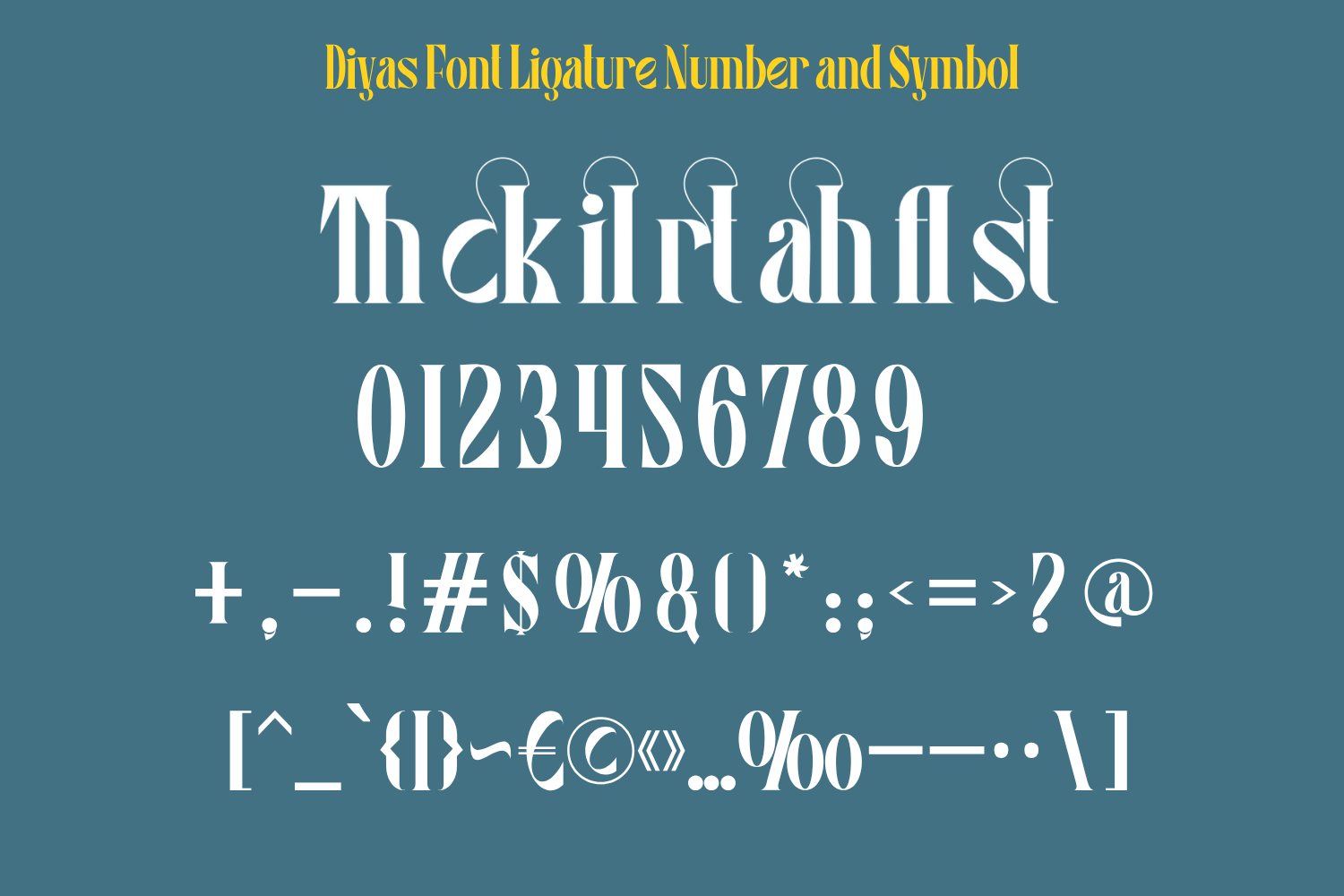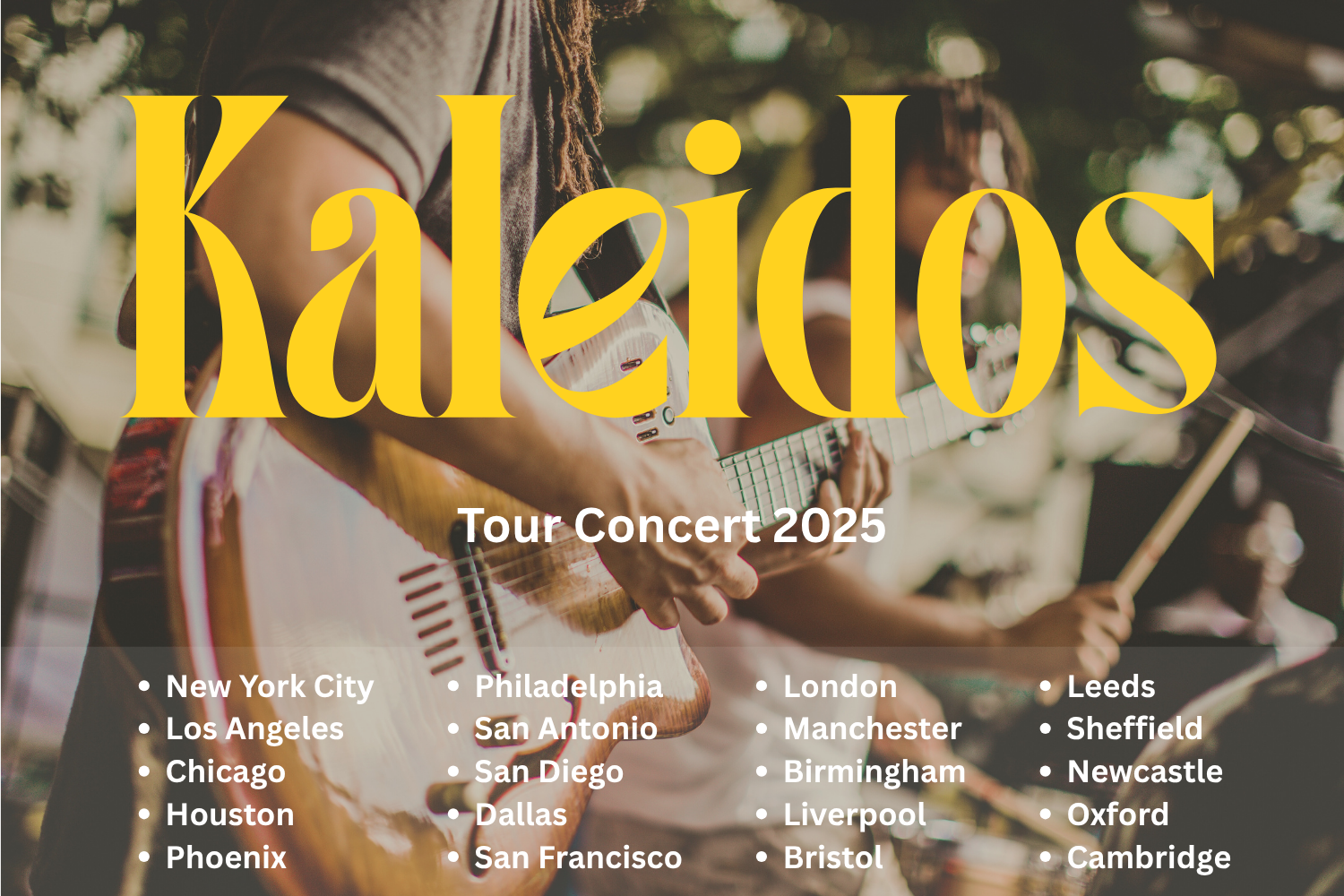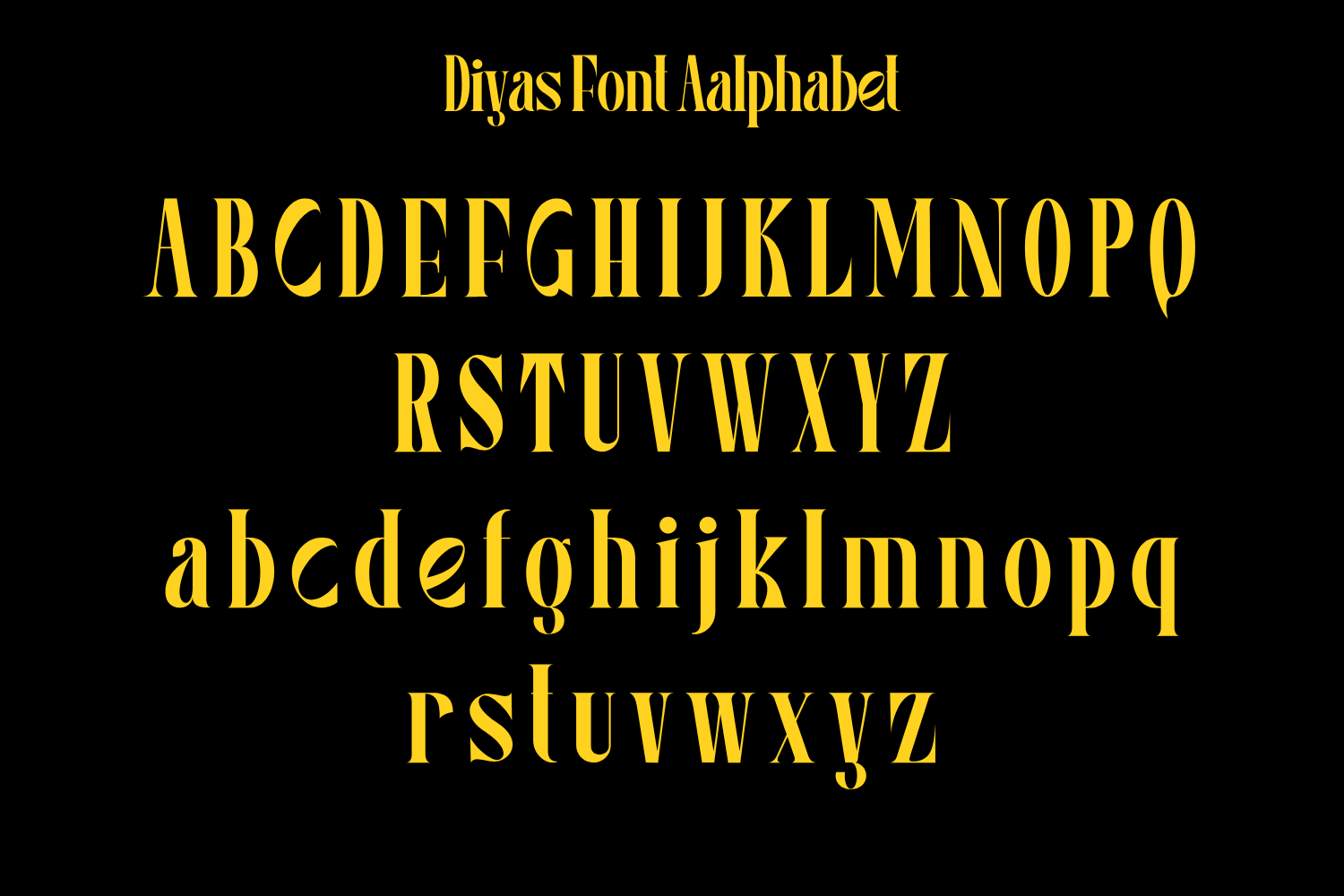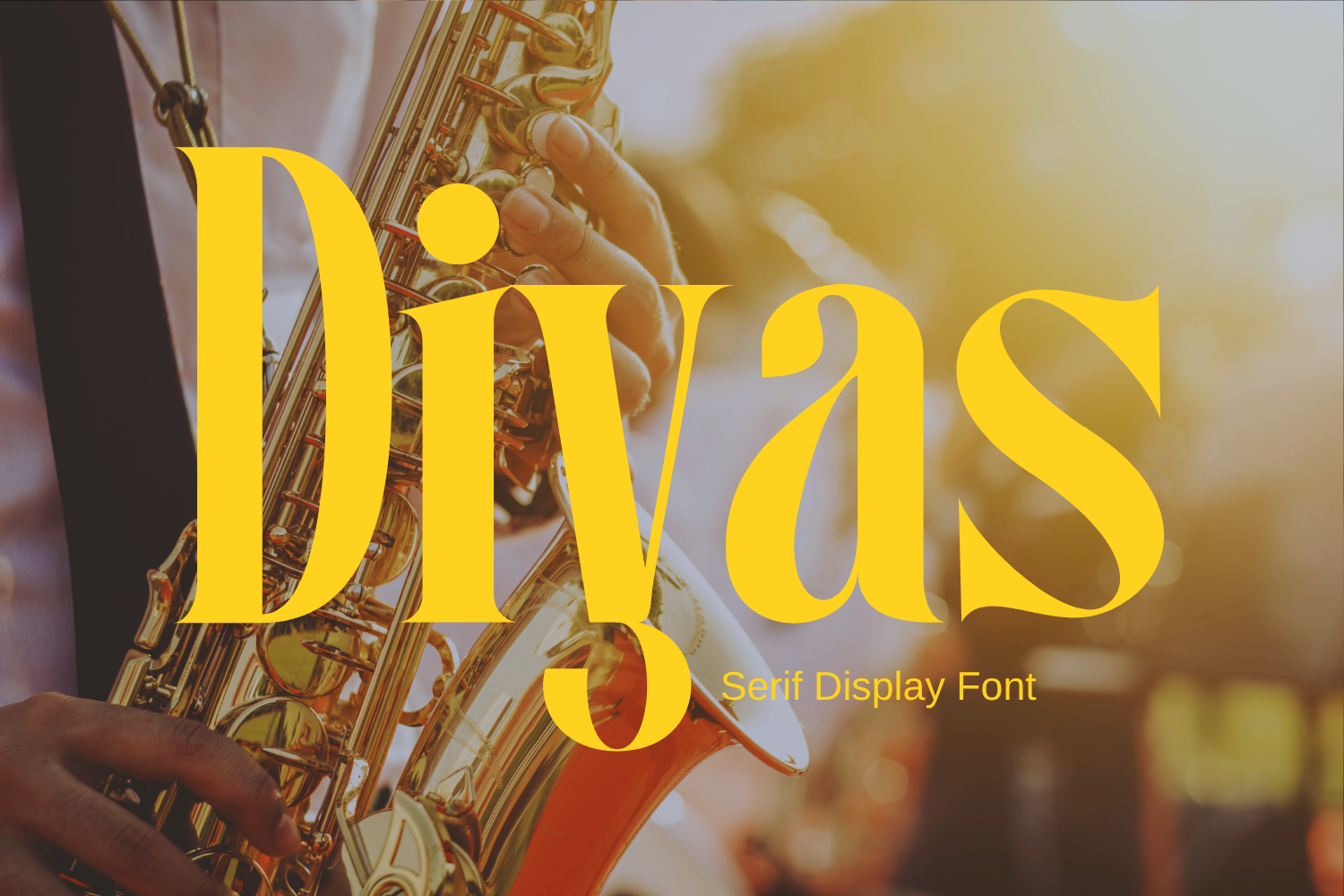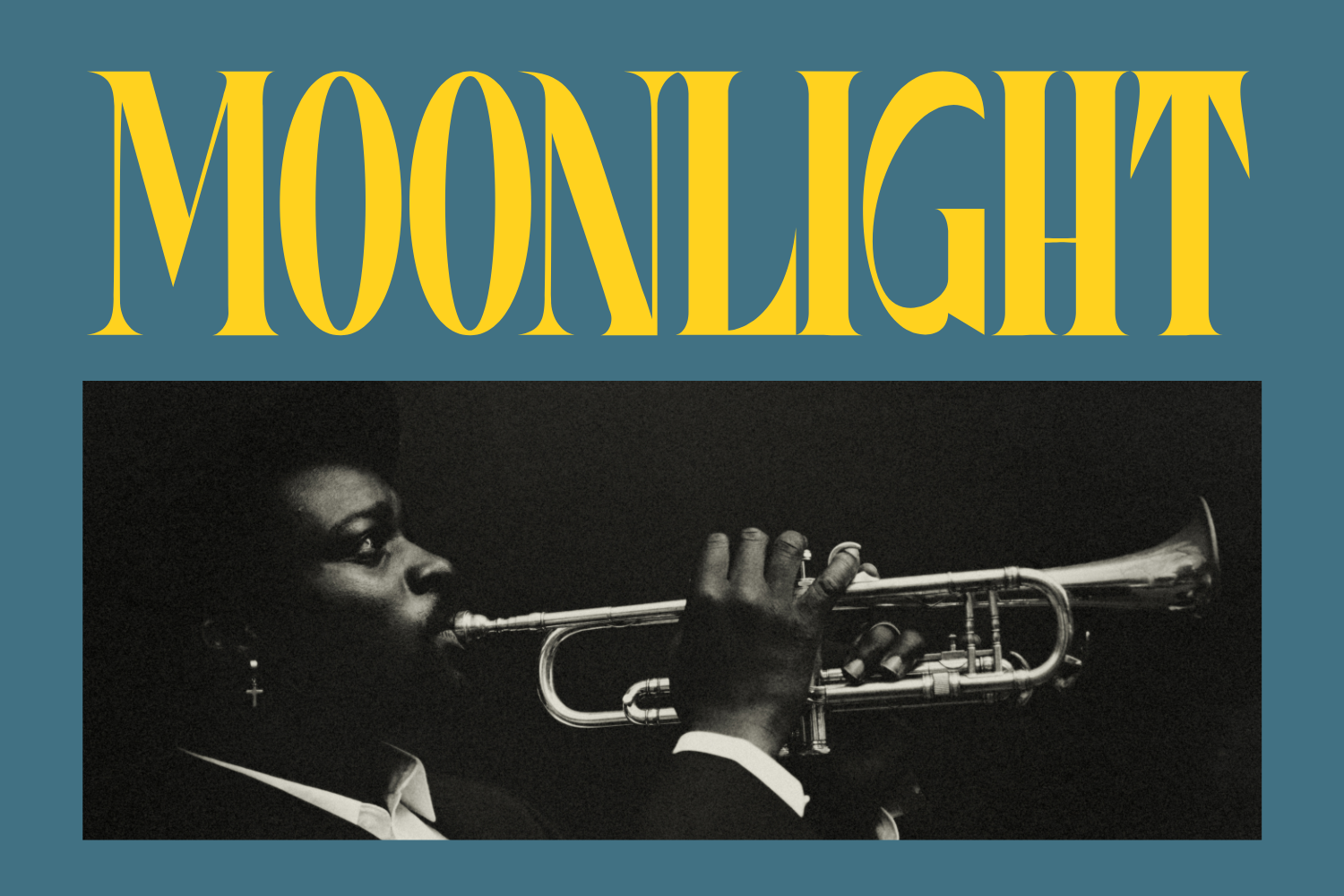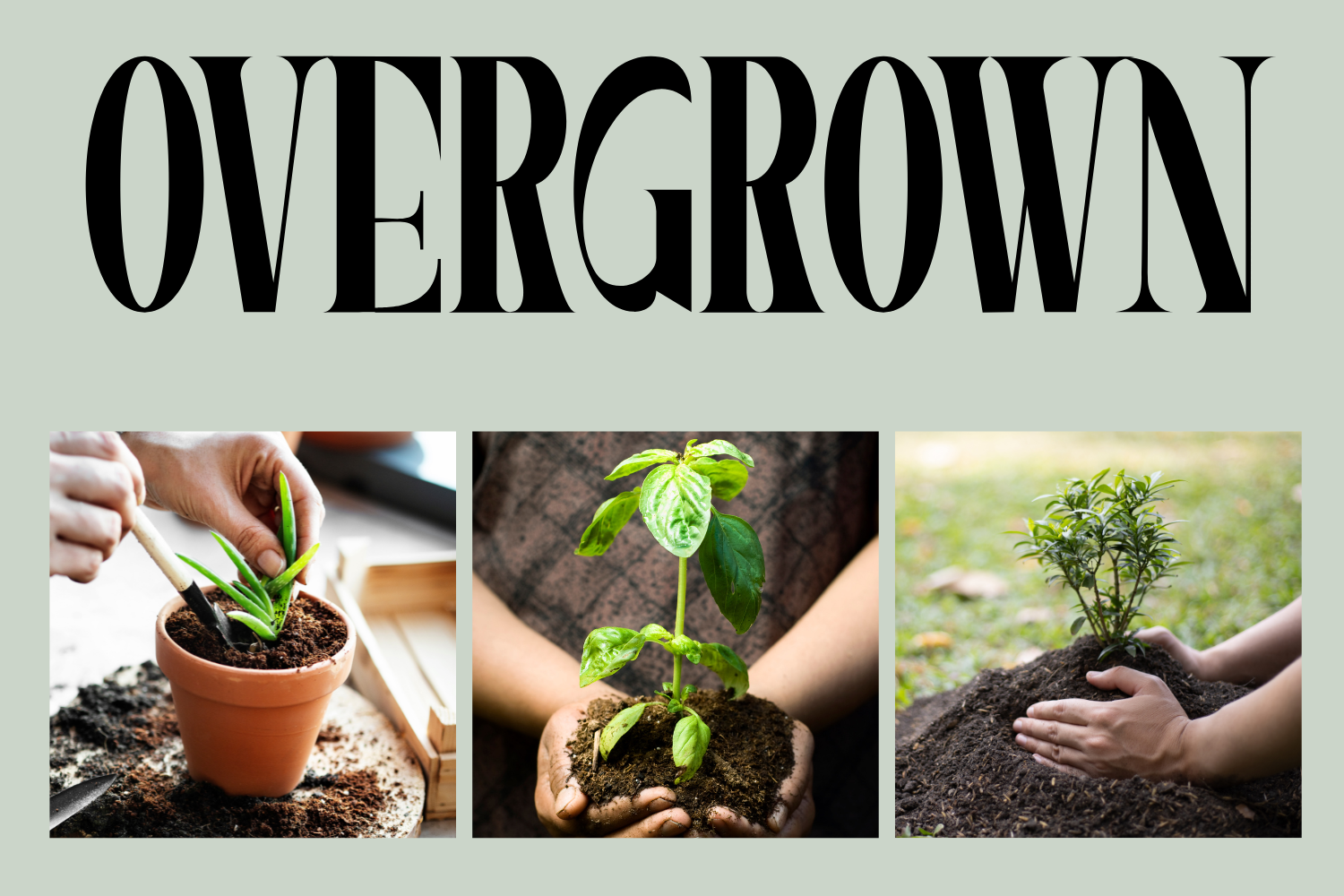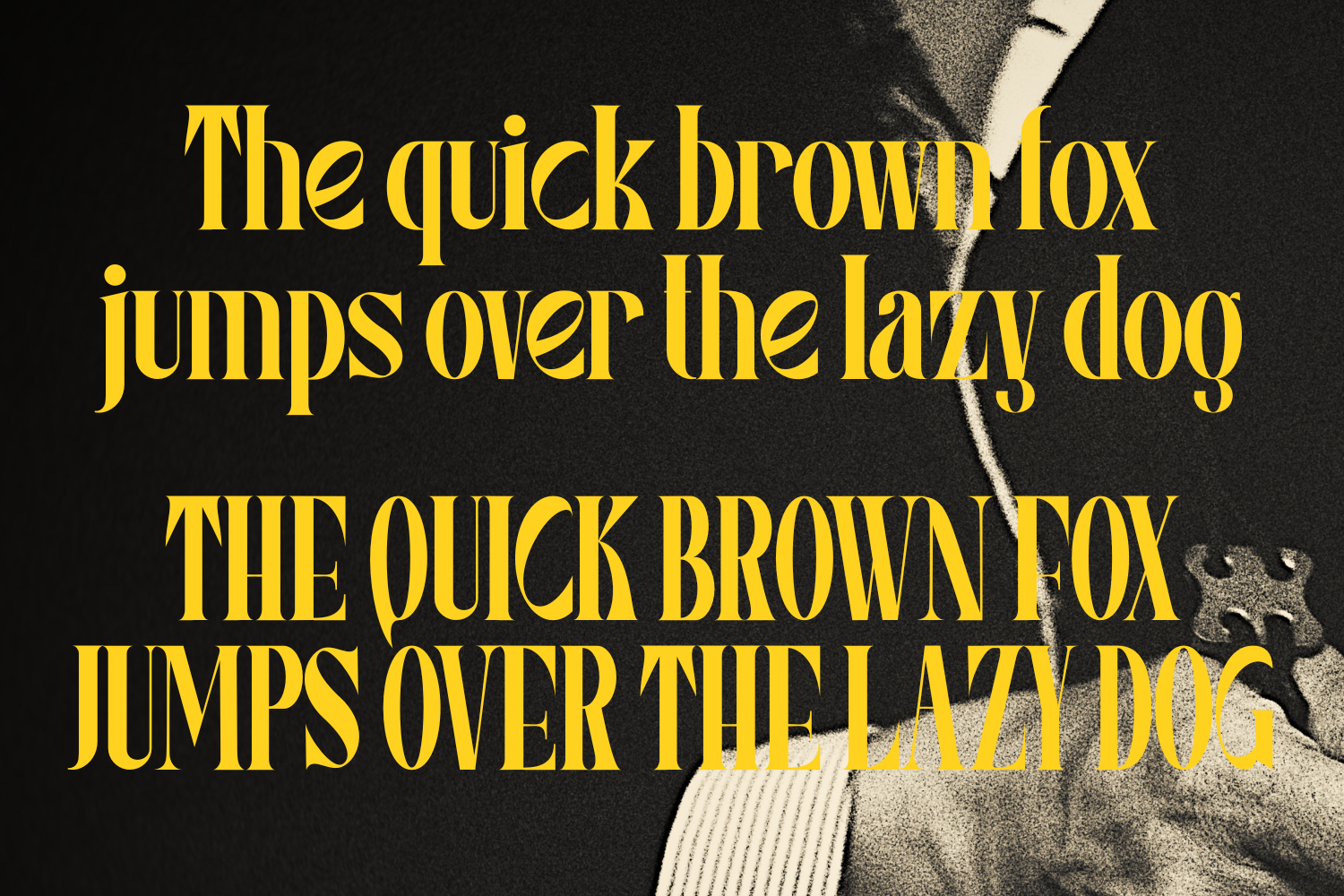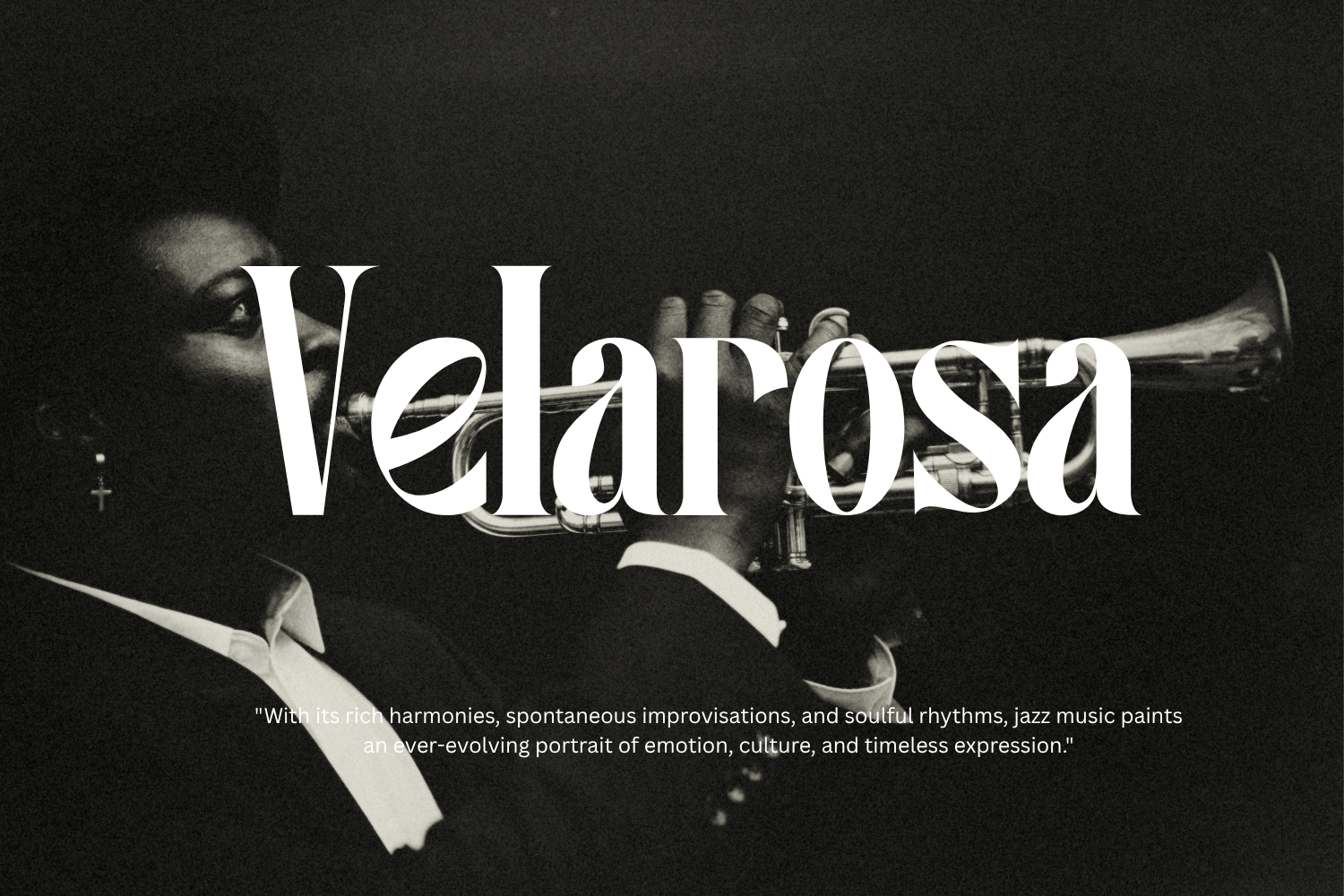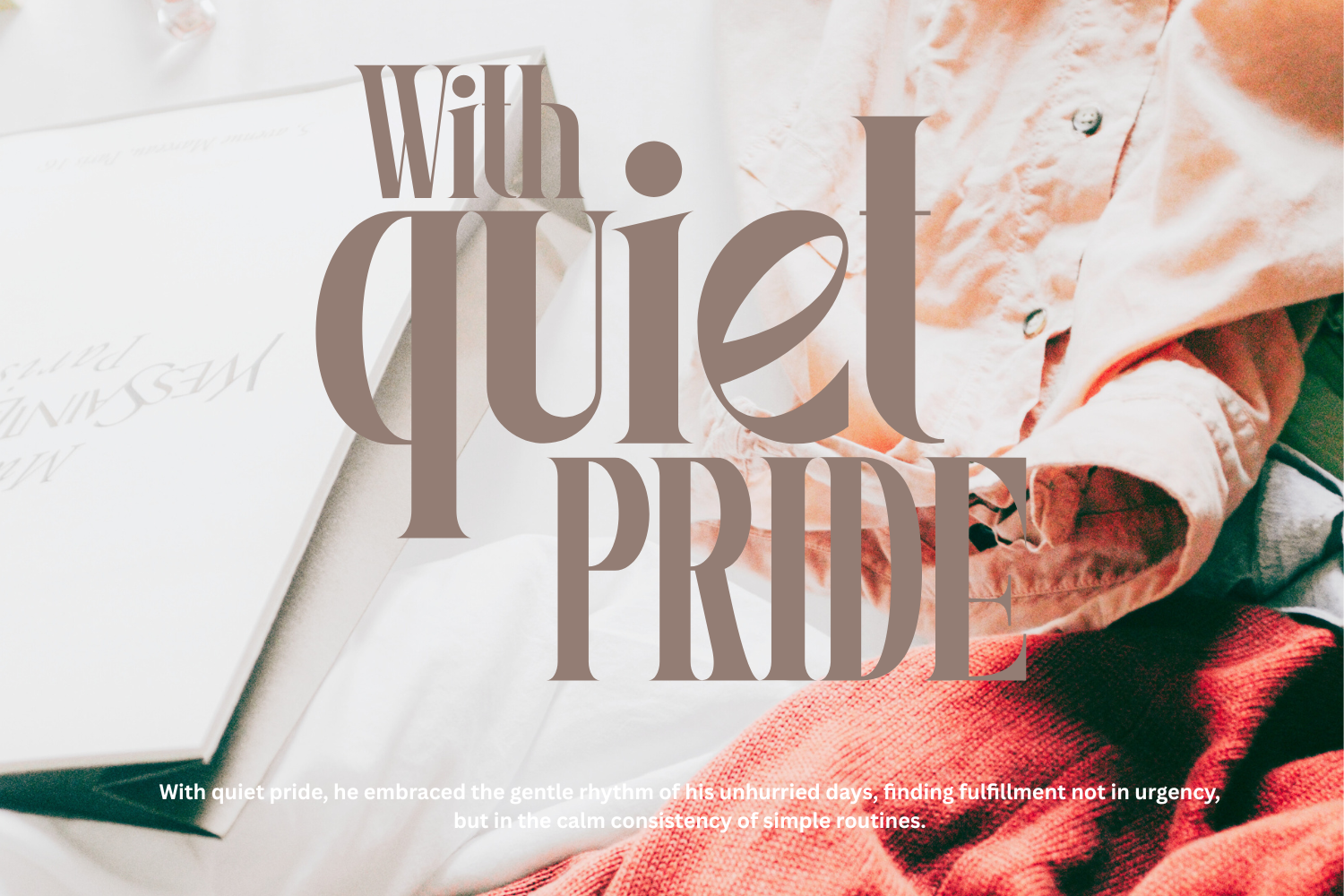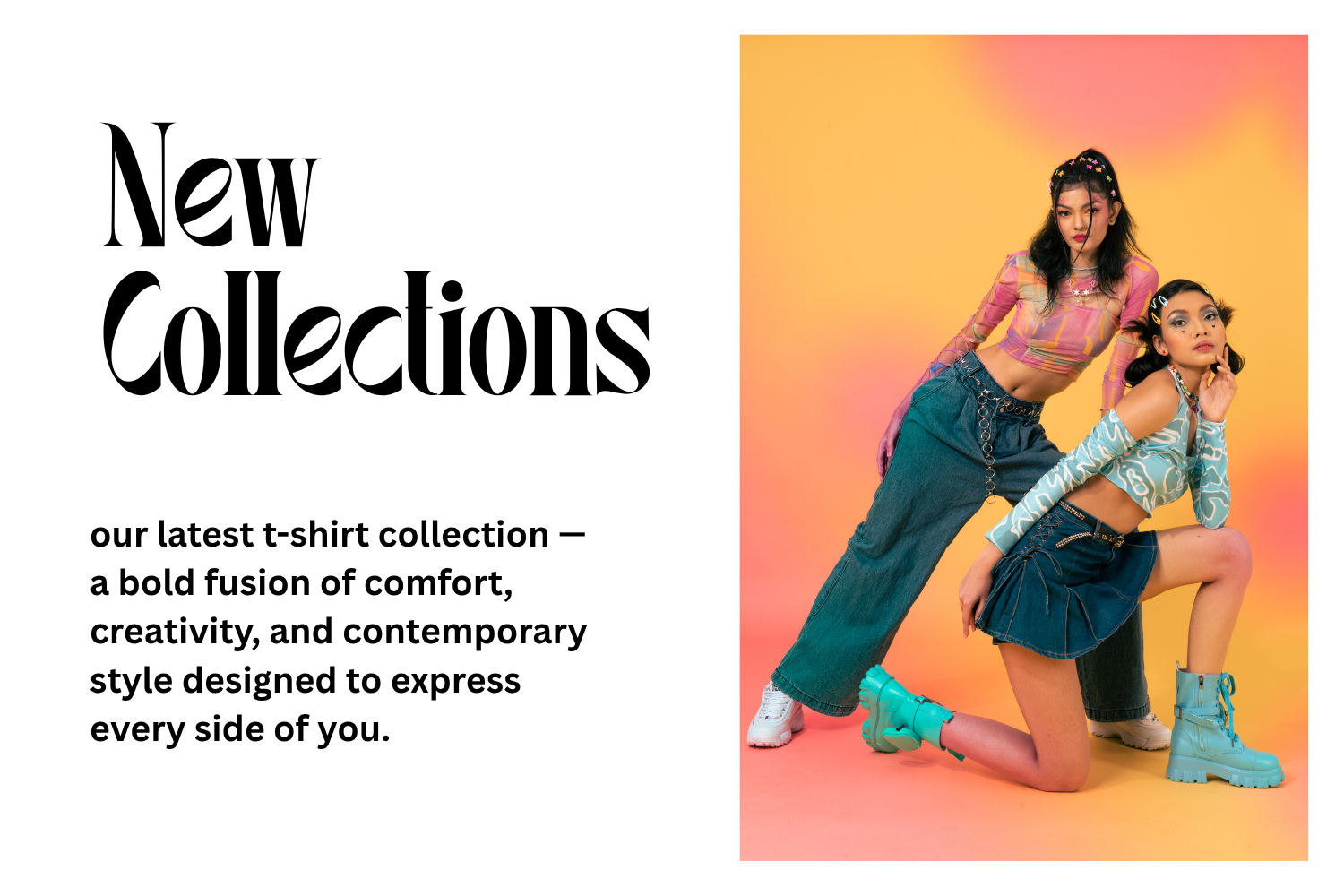
Diyas Font — Elegant Serif Display Typeface
Diyas Font is a modern serif display font that blends elegance, personality, and versatility. Designed for visual impact, Diyas offers a timeless serif style with a contemporary twist—perfect for designers who want their work to speak with bold sophistication.
Crafted with attention to detail, Diyas Font is inspired by editorial layouts, fashion headlines, and luxury branding. The combination of sharp edges and soft curves brings a refined personality to each character. Ligatures and alternates add a dynamic, flowing rhythm to any composition.
Uppercase & Lowercase Characters
Numbers & Punctuation
Elegant Ligatures (th, ck, fl, st, etc.)
Symbols & Special Characters
Multilingual Support